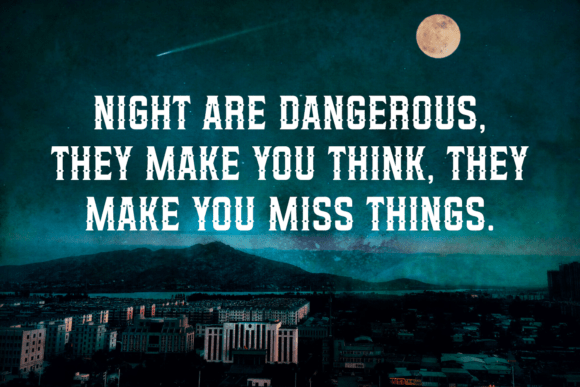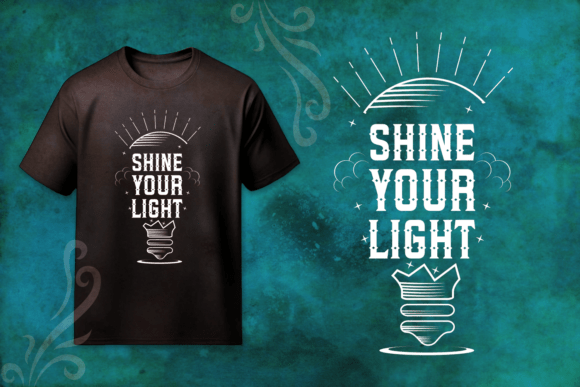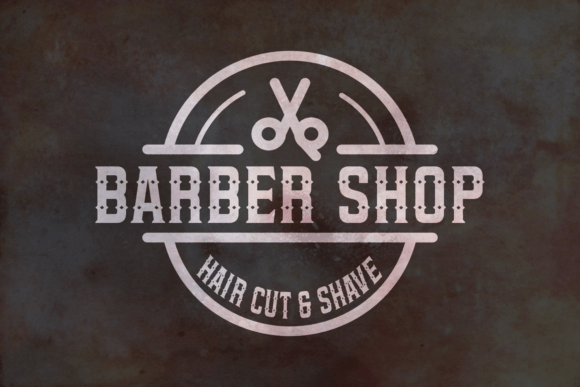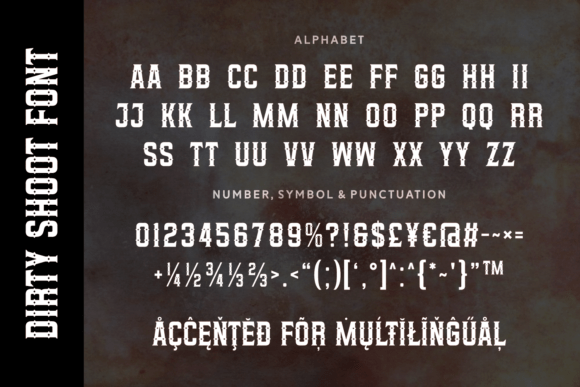
Unleash the Wild West with Dirty Shoot Font
Are you a designer or crafter looking for a font that captures the essence of the Wild West? Look no further than the Dirty Shoot Font, a classic Western-style font that is sure to add a touch of rugged elegance to your projects. In this article, we’ll take a closer look at the Dirty Shoot Font, its features, and how you can use it to add a touch of the Wild West to your designs.
A Promotional Image that Speaks Volumes
The promotional image showcasing the Dirty Shoot Font is a stunning representation of the Wild West. The font is enclosed in an ornate frame featuring decorative flourishes and illustrations of revolvers, perfectly capturing the aesthetic of the Wild West. The image is a testament to the font’s unique design and its ability to evoke the spirit of the American frontier.
What is Dirty Shoot Font?
Dirty Shoot Font is a Western-style font that is designed to resemble the classic typography of the Wild West era. The font features bold, rugged lettering with a distinctive texture that gives it a worn, vintage look. The font is perfect for designers and crafters who want to add a touch of authenticity to their projects, whether it’s a poster, a logo, or a craft project.
Key Features of Dirty Shoot Font
- Western-style design: The font features a classic Western-style design that is reminiscent of the Wild West era.
- Bold and rugged lettering: The font features bold, rugged lettering that is perfect for making a statement.
- Distinctive texture: The font has a distinctive texture that gives it a worn, vintage look.
- Ornate frame: The promotional image features an ornate frame with decorative flourishes and illustrations of revolvers.
How to Use Dirty Shoot Font
Dirty Shoot Font is a versatile font that can be used for a variety of projects, including:
- Posters and flyers: Use the font to create eye-catching posters and flyers that evoke the spirit of the Wild West.
- Logos and branding: Use the font to create logos and branding materials that have a rugged, Western feel.
- Craft projects: Use the font to add a touch of authenticity to craft projects, such as wood signs, paper crafts, and more.
Tips for Using Dirty Shoot Font
- Use it sparingly: Because of its bold and rugged design, it’s best to use the font sparingly to avoid overwhelming the viewer.
- Pair it with other fonts: Pair the font with other fonts to create a unique and interesting contrast.
- Experiment with colors: Experiment with different colors to find the perfect combination that complements the font.